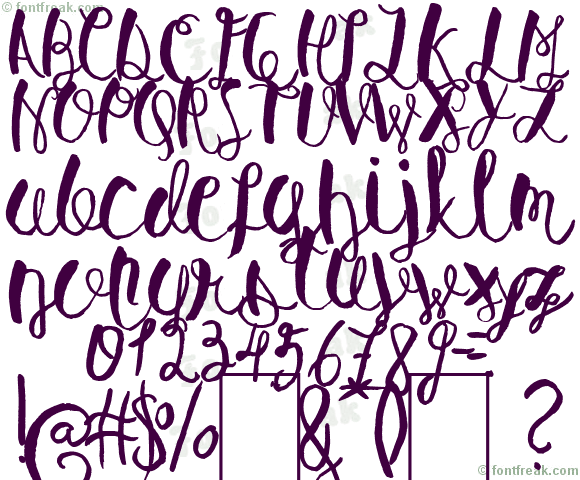
Baley Sun
About Baley Sun
Baley Sun, designed by Leonard Posavec, is a captivating display font that combines a playful aesthetic with artistic flair. This unique typeface falls into the decorative category, characterized by its whimsical, hand-drawn style. The strokes exhibit a varied weight, creating an engaging contrast that draws the eye. Its loose, fluid lines and distinctive letterforms give it a sense of spontaneity, making it ideal for projects that aim to convey a casual yet creative vibe. The spacing between letters is generous, enhancing readability while maintaining the font's artistic charm.
The Baley Sun font is versatile and can be effectively used in various contexts. It shines in wedding invitations, where its lighthearted nature can evoke joy and celebration. Additionally, it is perfect for creating eye-catching movie posters that require a touch of originality. Restaurant menus can benefit from its unique style, enticing diners with a creative presentation of offerings. Similarly, content creators will find it an excellent choice for social media graphics, as it adds a personal touch that resonates with audiences. Graphic designers and small business owners will appreciate its ability to elevate branding and marketing materials.
What sets the Baley Sun font apart is its ability to blend creativity with functionality. It stands out in a crowded marketplace, providing a fresh alternative to more conventional typefaces. The free availability of this font under the freeware license makes it an attractive option for those looking to enhance their projects without incurring costs. Whether you're a graphic designer crafting an eye-catching layout or a small business owner seeking to establish a unique brand identity, the Baley Sun font free download offers an exciting opportunity to infuse your work with personality and style.